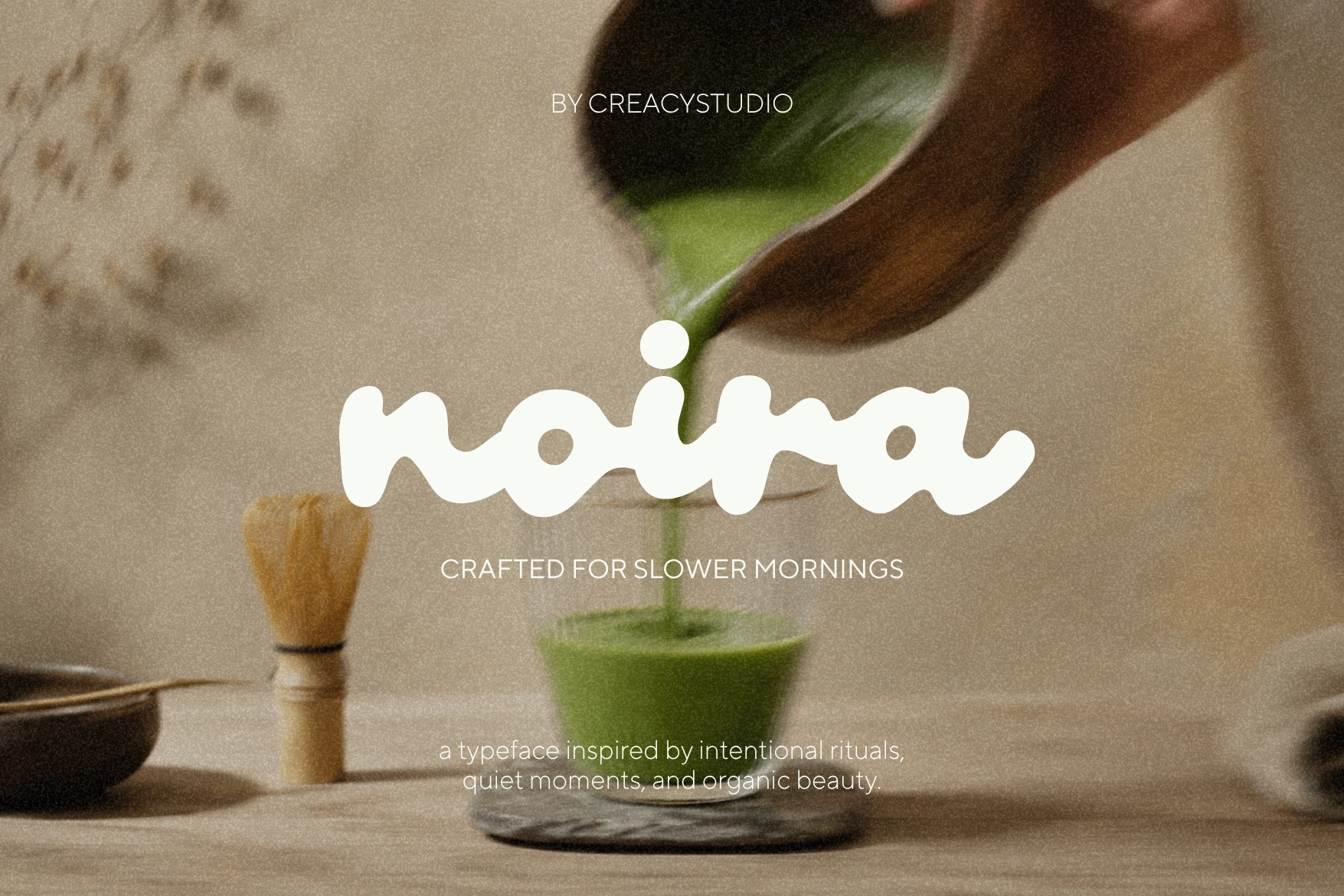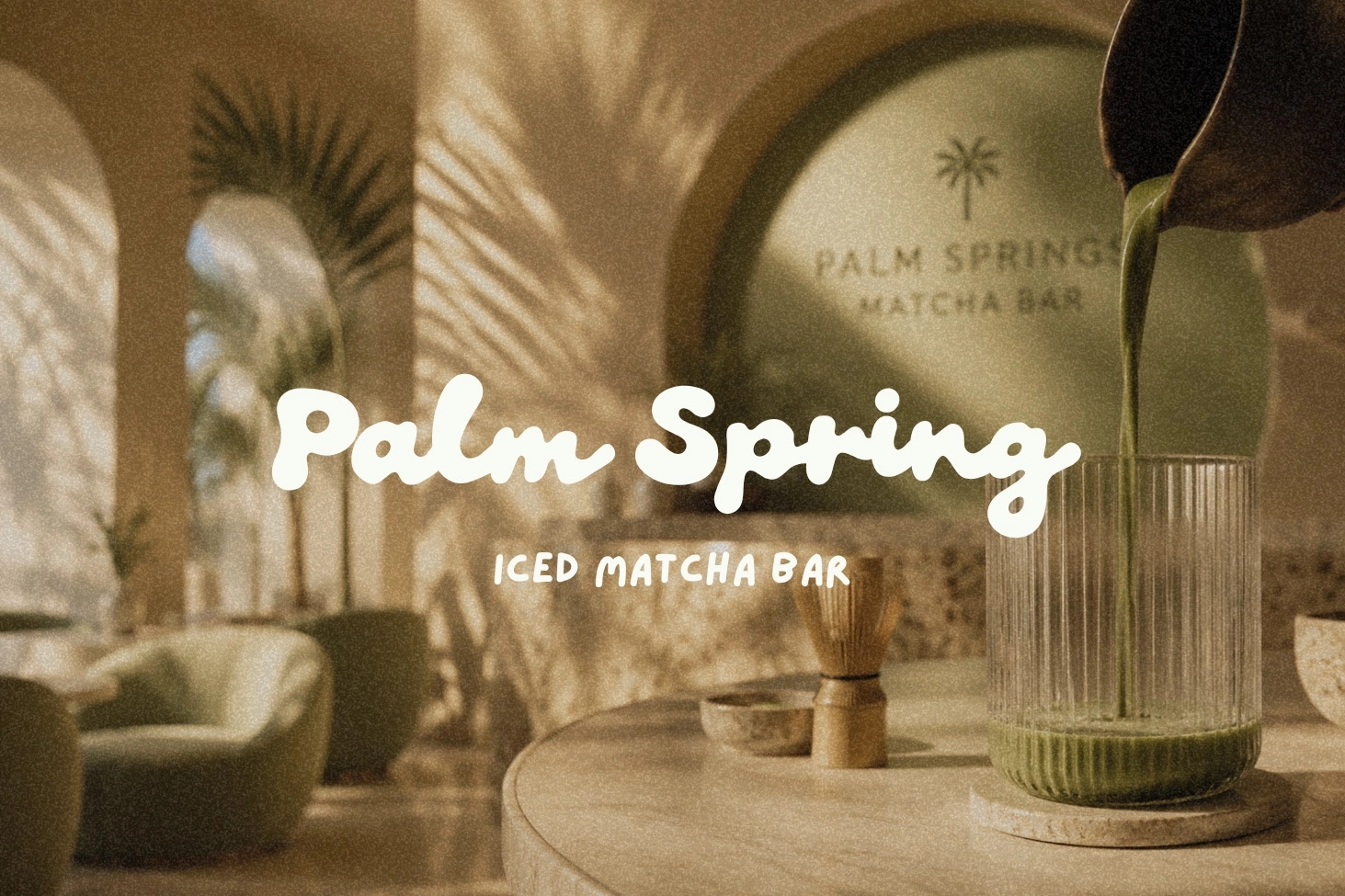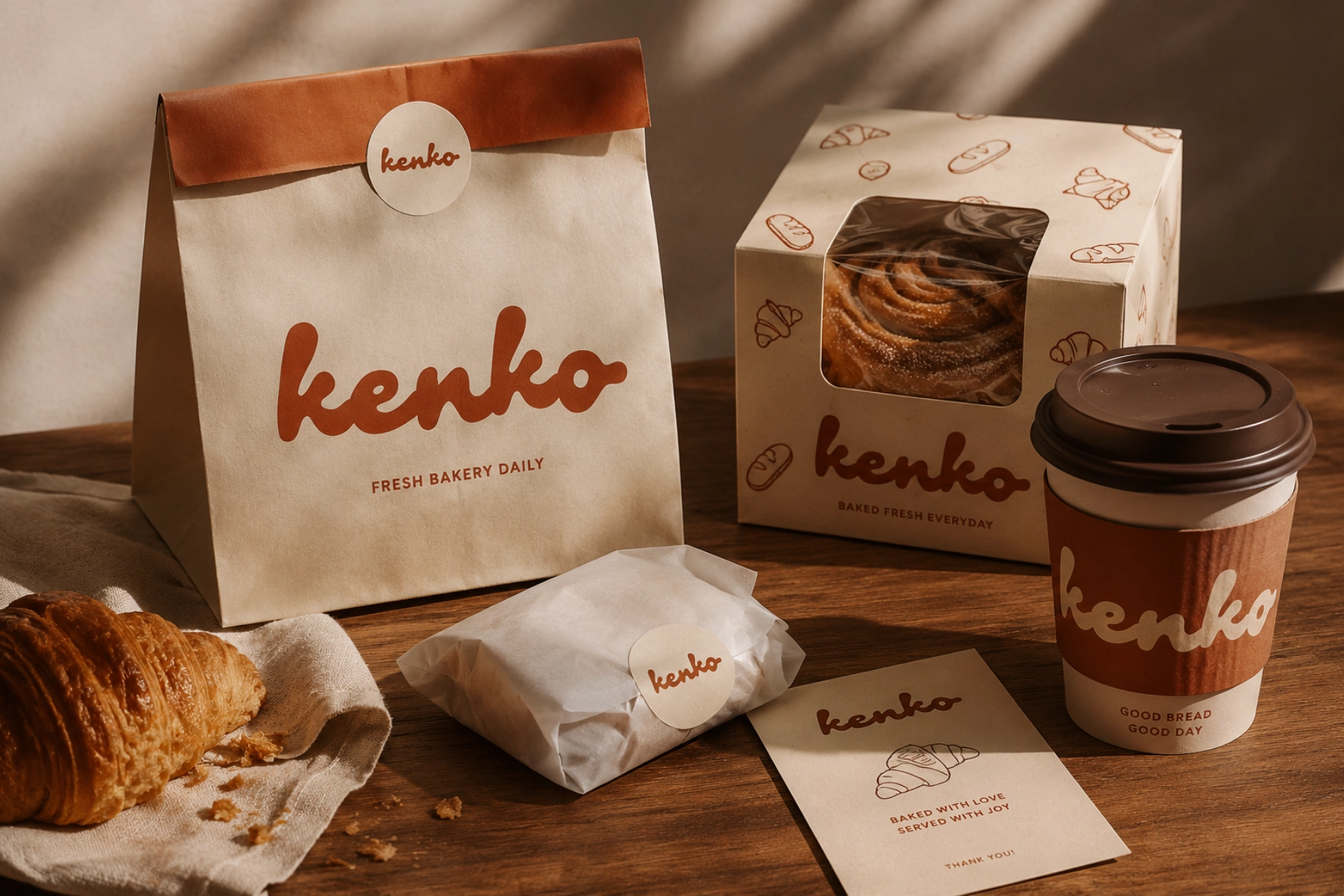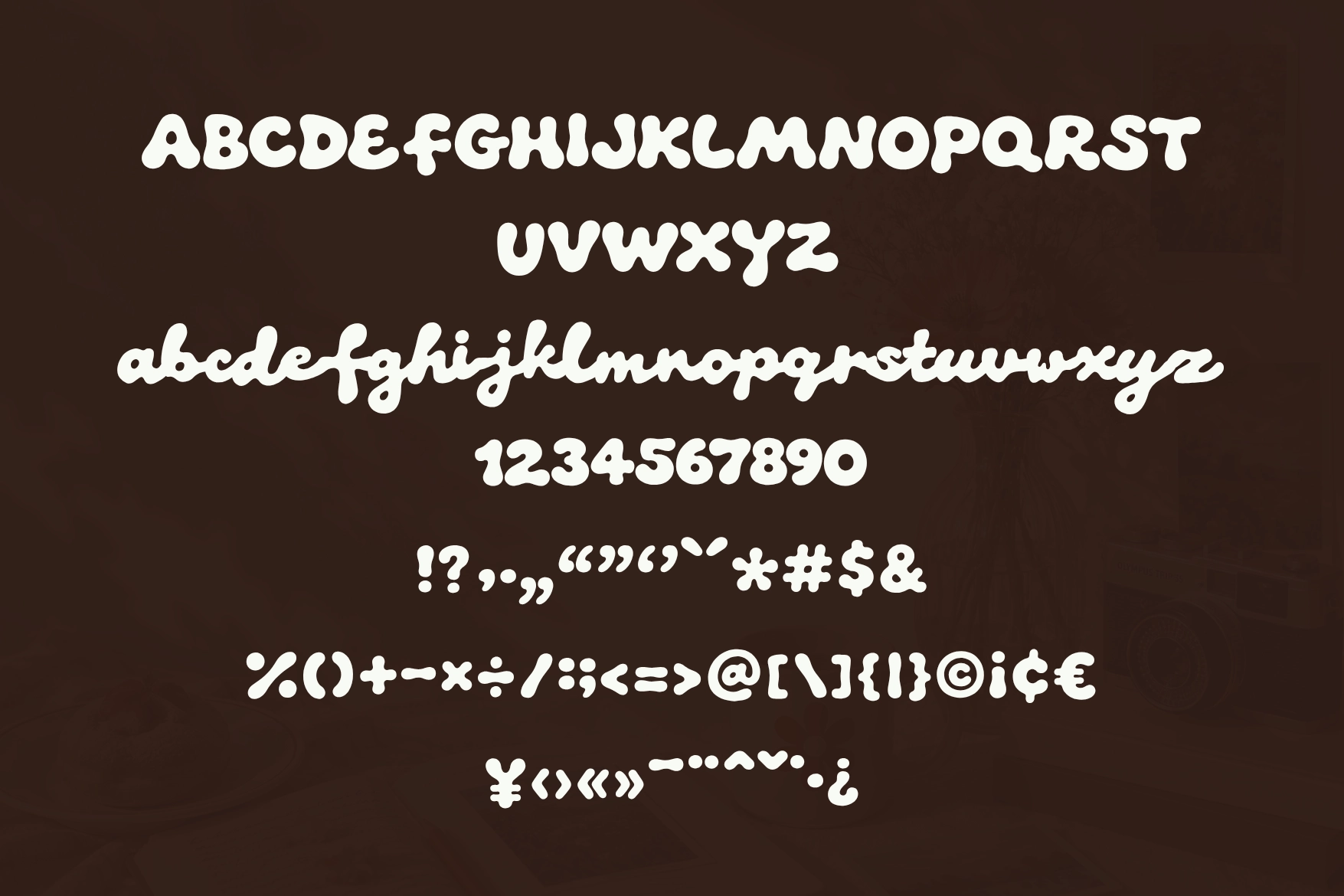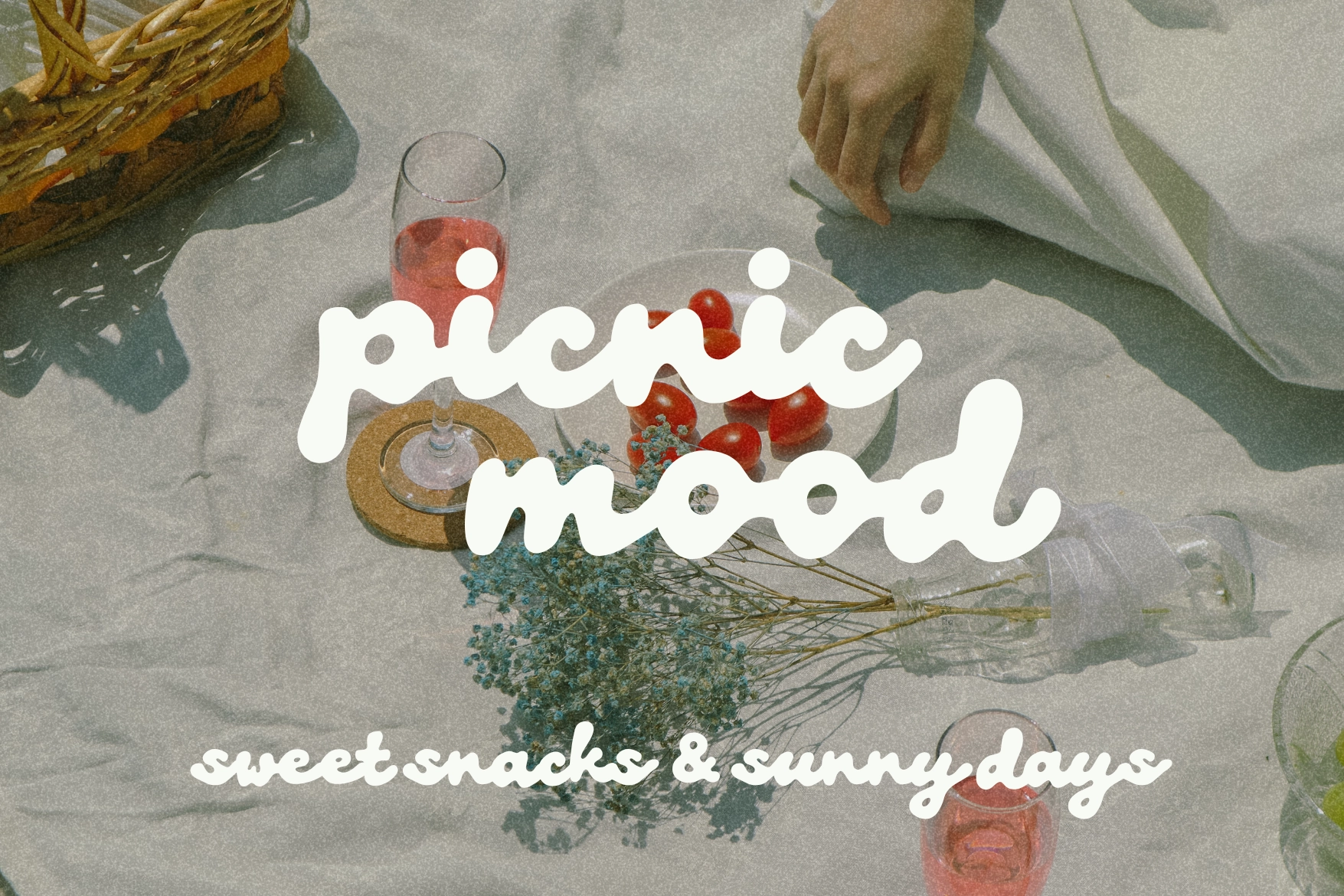
Noira – Rounded Organic Display Font
Noira Bold Script
A playful display font with soft rounded letters , bouncy rhythm, and handmade curves that look relaxed rather than over-polished. Its chunky shapes and casual script details give logos, packaging, and editorial titles a friendly character with a subtle retro twist.
Noira works naturally for café branding, bakery packaging, matcha bars, brunch menus, tote bags, stickers, poster titles, lifestyle quotes, children’s labels, Pinterest graphics, social media posts, handmade product branding, and cozy shop identities. The letterforms are bold enough for display use, but the rounded edges keep the whole look approachable and easy to read.
- Smooth handcrafted style